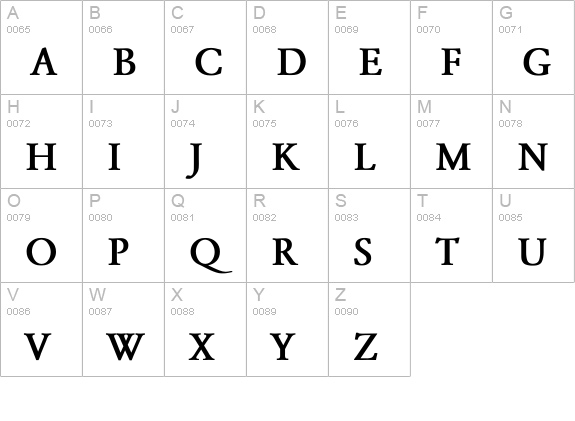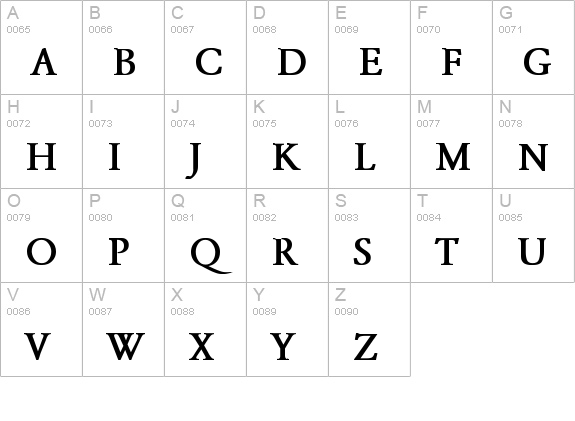
Yearlind Bold is a strong, high-contrast variant in the Yearlind typeface family \xE2\x80\x94 well suited to headlines, attention-grabbing titles, and strong calls-to-action.
Yearlind Bold is a striking and versatile font that exudes strength and elegance. Its bold weight commands attention and makes a bold statement in any design project. The clean lines and modern styling of Yearlind Bold make it perfect for a wide range of uses, from headlines to logos to branding materials. What sets Yearlind Bold apart is not only its bold and impactful appearance, but also the fact that it is available for free download at FontsMarket.com. This means that you can easily incorporate this stunning font into your projects without any cost, making it a valuable addition to any designer's toolkit. Whether you're looking to add a touch of boldness to your designs or make a statement with your typography, Yearlind Bold is the perfect choice. Download it for free today and see the impact it can make on your projects.